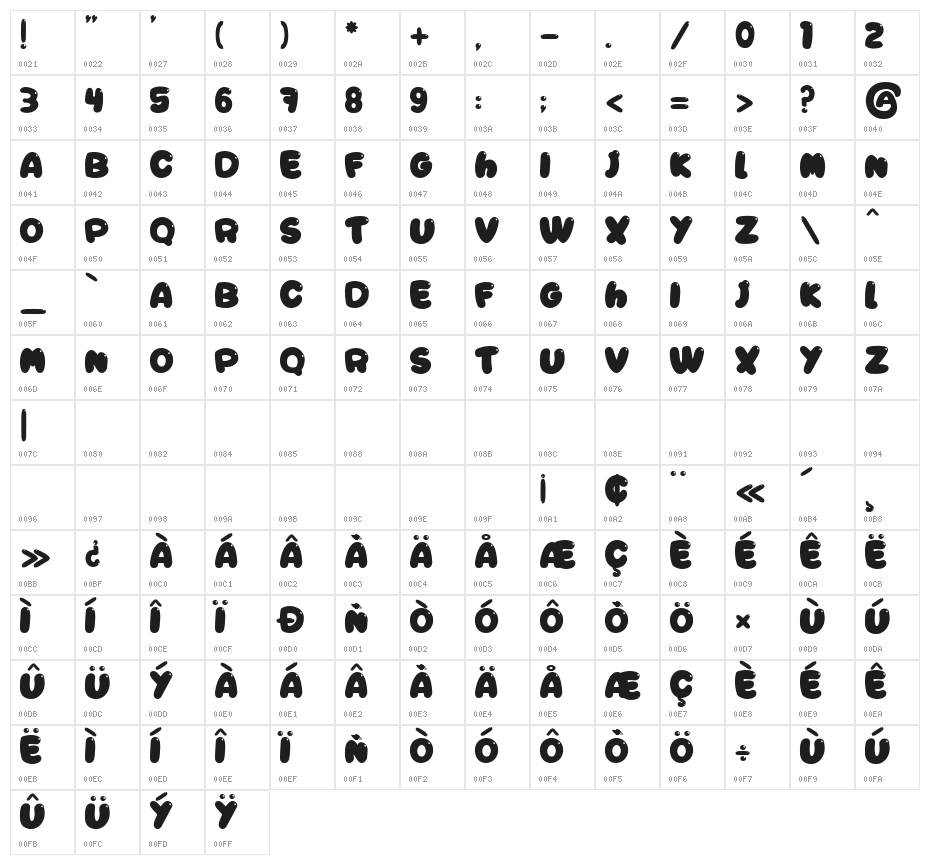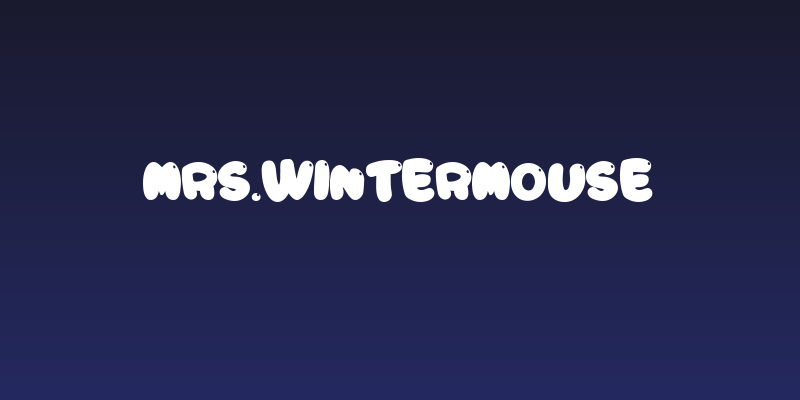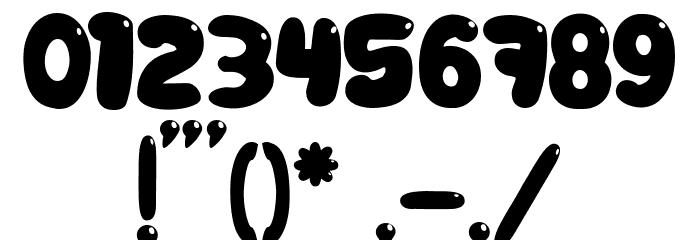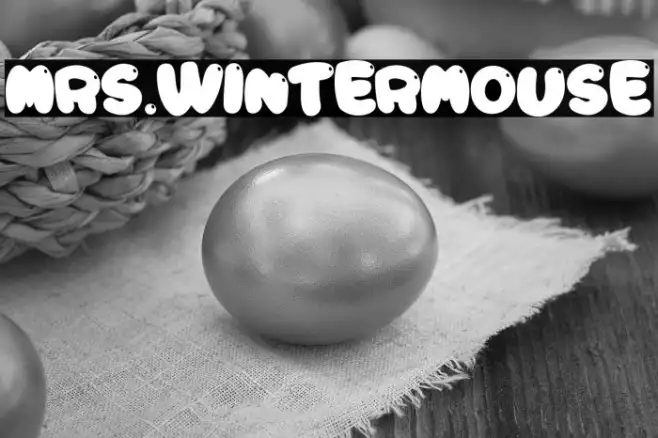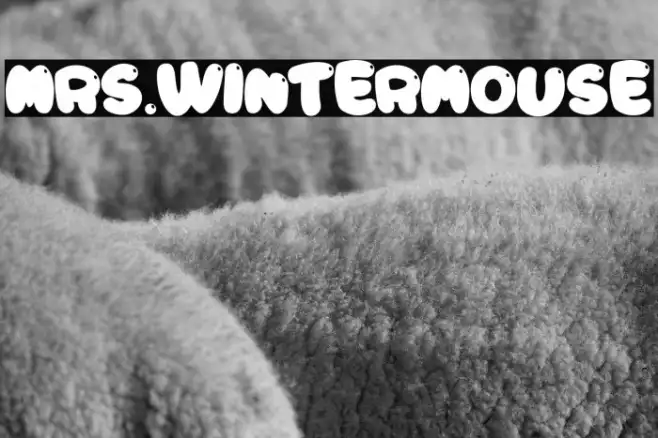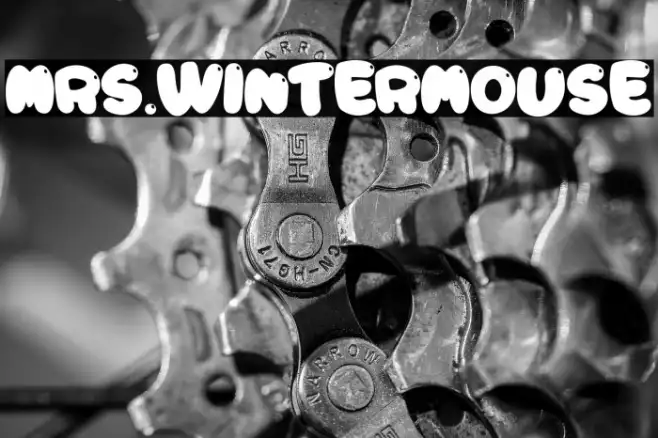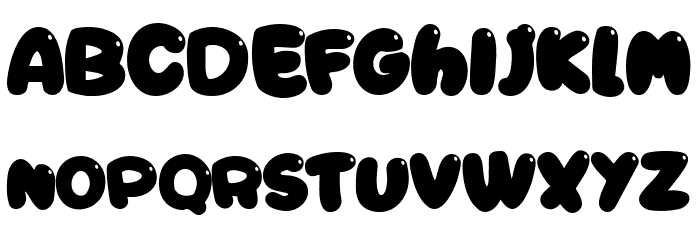
Mrs.Wintermouse Font
Mrs.Wintermouse Description
This playful and bold font features rounded, bubble-like characters that convey a sense of fun and whimsy. The letters are thick and uniform, with a consistent stroke width that gives them a solid, substantial appearance. The rounded edges and smooth curves create a friendly and approachable feel, making it ideal for designs that aim to be inviting and cheerful. The font includes both uppercase and lowercase letters, numbers, and a selection of special characters, all maintaining the same playful style. Its boldness ensures high visibility and impact, making it suitable for eye-catching headlines and creative projects.
| Proposed Projects | Ideal for children's books, playful branding, party invitations, and any project needing a fun, whimsical touch. |